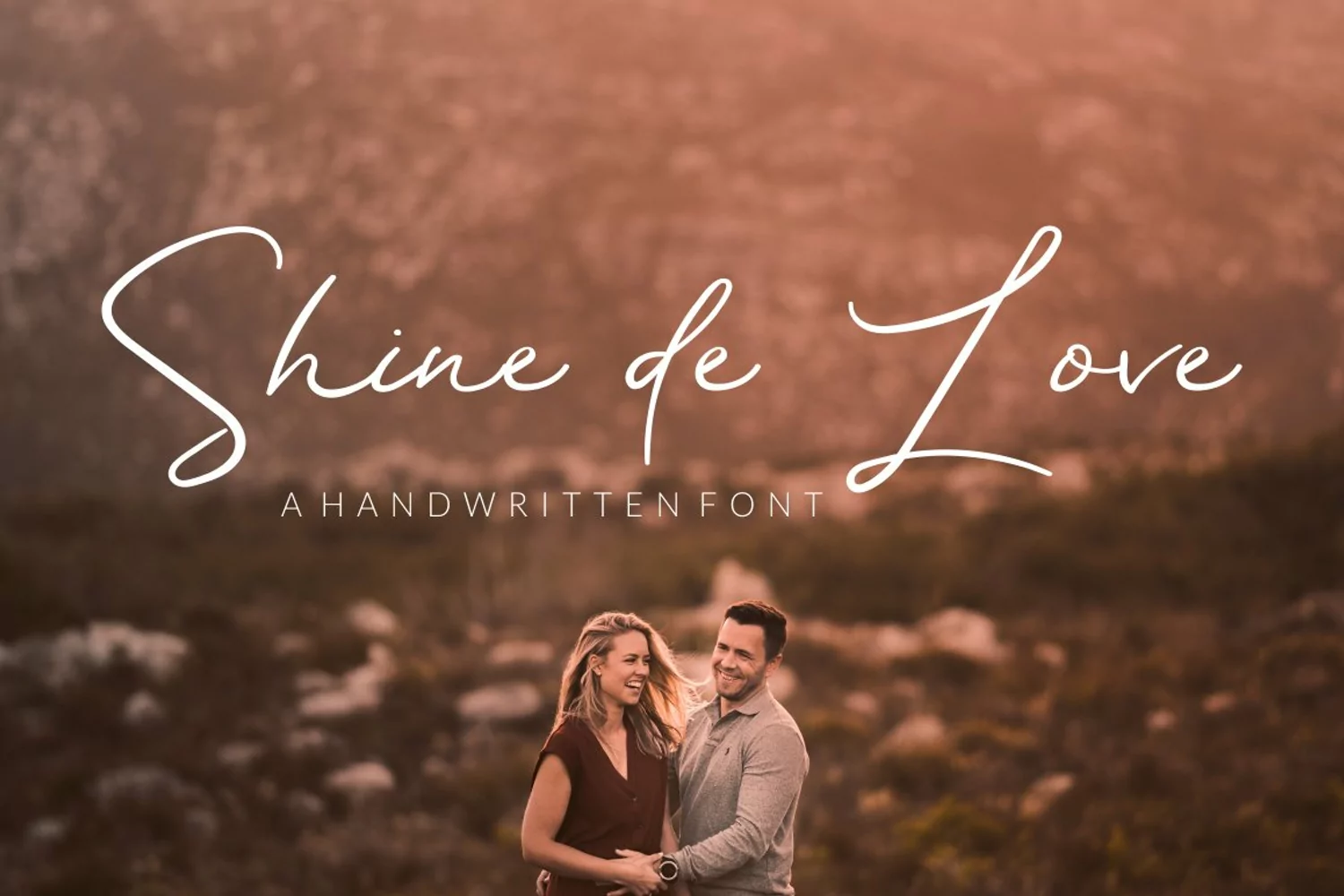
Shine de Love is an incredibly modern and sweet handwritten font.
Shine de Love is PUA encoded which means you cam access all of the cute glyphs and swashes with ease! It also features a wealth of special feature including alternate characters (OpenType feature) and multilingual support, this font also suitable to be combined with san-serif to get an extraordinary result for your design projects.
Ligatures
Swash